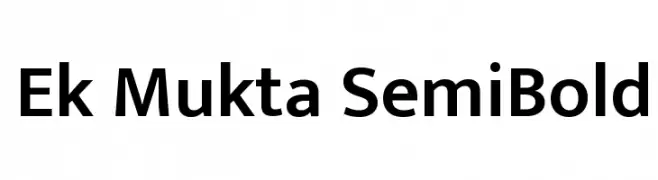
A modern, light sans-serif font with clean lines and excellent readability.
A modern sans-serif font with clean lines and balanced proportions.
A bold, modern sans-serif font with clean lines and high legibility.
A clean, modern font with smooth strokes and balanced spacing.
A bold, modern sans-serif font with clean lines and excellent readability.
A modern, semi-bold sans-serif font with clean lines and balanced proportions.
A modern sans-serif font with clean lines and balanced proportions.
A modern, extra bold sans-serif typeface with a strong, uniform appearance.
A modern sans-serif font with balanced proportions and smooth curves.
A clean, modern sans-serif font with a light weight and uniform stroke width.
A bold, modern sans-serif font with clean lines and excellent legibility.
A bold, modern sans-serif font with clean lines and strong visual impact.
A modern, geometric sans-serif font with a minimalist design.
A modern, geometric sans-serif typeface with a clean and condensed appearance.
A modern, extra-bold sans-serif font with a geometric design.
A thin, modern sans-serif font with a sleek and minimalist design.
A modern, semi-bold sans-serif font with a clean and geometric design.
A modern, geometric sans-serif font with a sleek and elegant design.
A bold, modern sans-serif font with excellent legibility and versatility.
A modern sans-serif typeface with clean lines and balanced proportions.
A clean, modern typeface with balanced proportions and excellent readability.
A modern sans-serif font with geometric shapes and uniform strokes.
A clean, modern sans-serif font with a semi-bold weight and balanced proportions.
A modern, extra bold sans-serif typeface with clean lines and excellent readability.
A modern, clean sans-serif font with balanced spacing and consistent stroke width.
A bold, rounded, and playful font with a modern and friendly appearance.
A playful, rounded, and bold font with a friendly and modern appearance.
A playful, rounded font with bold, smooth curves and a modern feel.
A bold, rounded font with a playful and friendly style.
A playful, rounded font with a bold and friendly appearance.